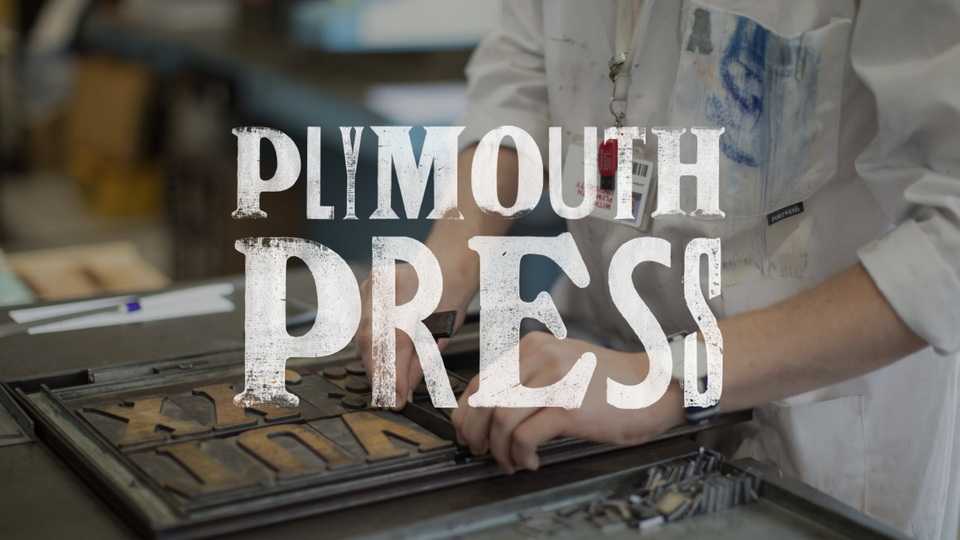
Download PlymouthPress font, a display typeface that uses the OpenType-SVG image format, a new and cutting-edge font technology. Each glyph of PlymouthPress has been digitized directly from prints made using our antique letterpress facilities.